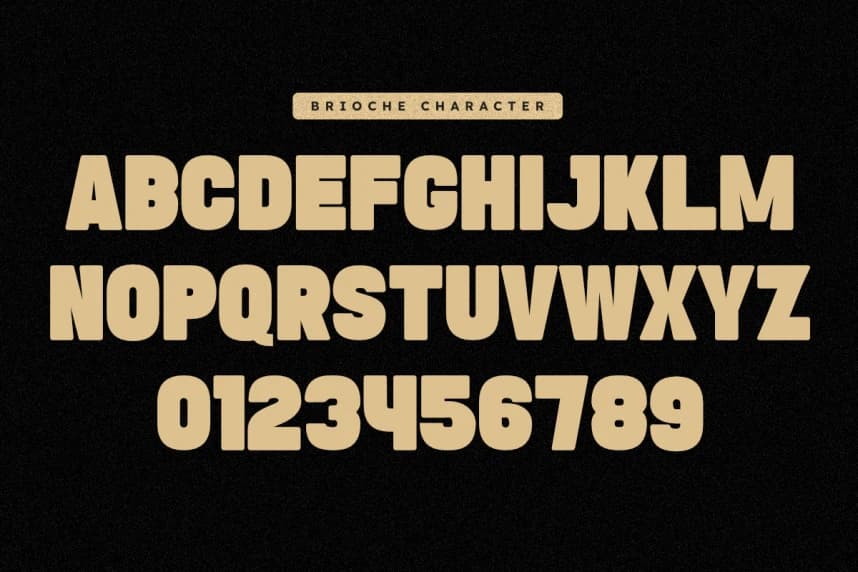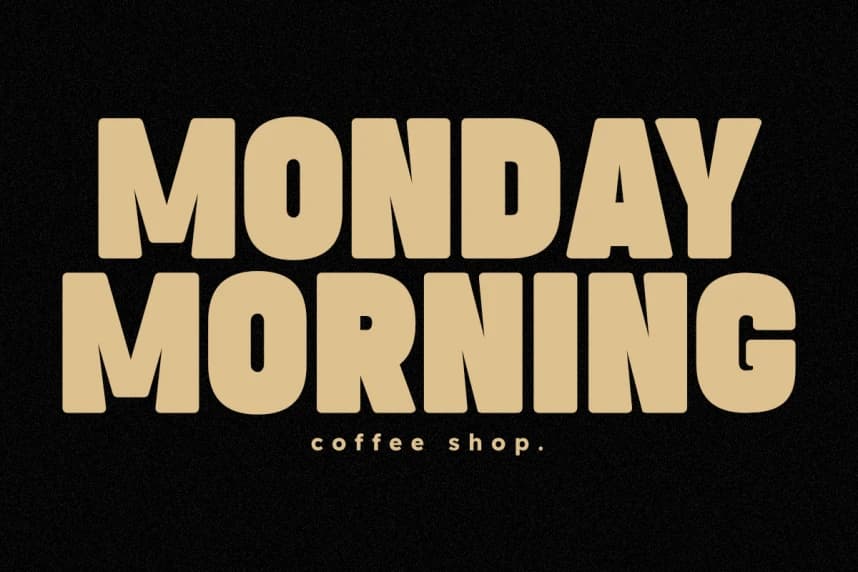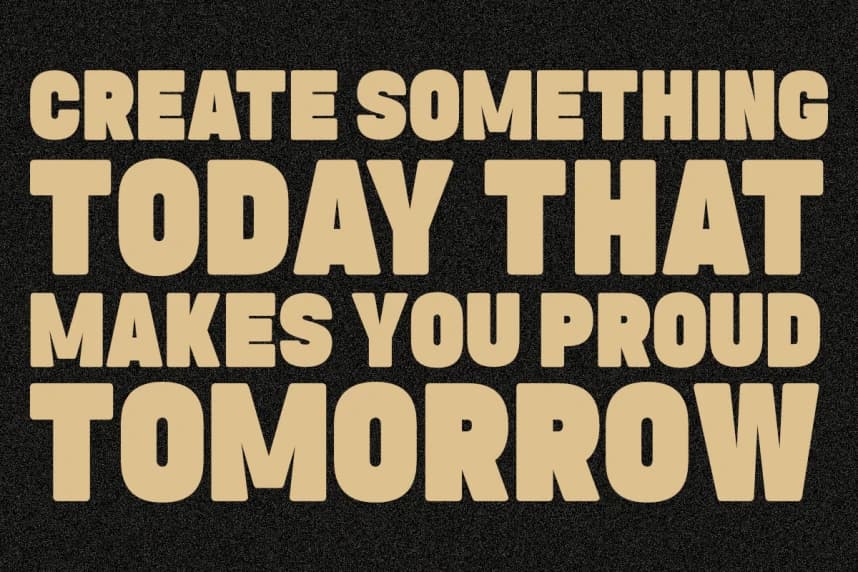
Brioche Sans Serif Font is a bold retro chunky sans serif font uniquely designed to inject a playful and nostalgic vintage aesthetic into your contemporary creative assets. Featuring a thick weight, solid geometric structural balance